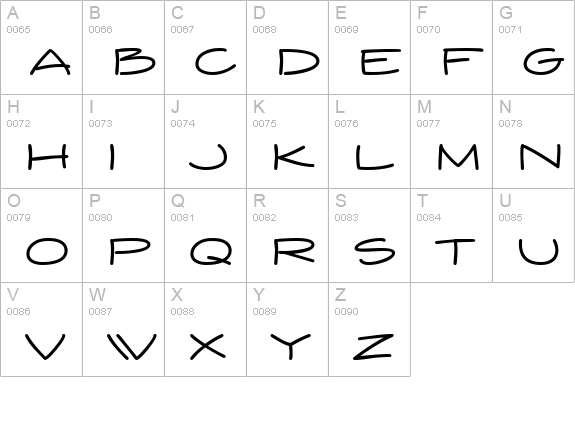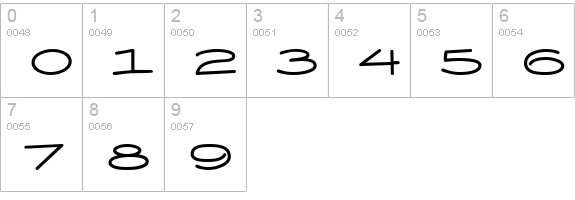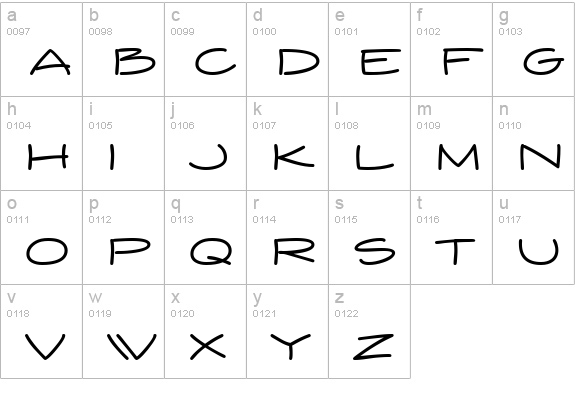
Yuba BTN Expanded is a distinctive, extended-width variant in the Yuba typeface family \xE2\x80\x94 well suited to design and typography projects.
Yuba BTN Expanded font is a versatile and modern typeface that is perfect for various design projects. With its sleek and stylish appearance, this font is sure to make your text stand out. The expanded version of Yuba BTN offers a bold and eye-catching look that is ideal for headlines, titles, and other prominent text elements. What makes Yuba BTN Expanded font even more appealing is that it is available for free download at FontsMarket.com. This means that you can easily access and use this font in your projects without any cost. Whether you are working on a website, poster, logo, or any other design, Yuba BTN Expanded font can add a touch of sophistication and professionalism. With its clean lines and contemporary aesthetic, Yuba BTN Expanded font is a must-have for any designer looking to elevate their work. Download it for free today and enhance your projects with this modern and stylish typeface.